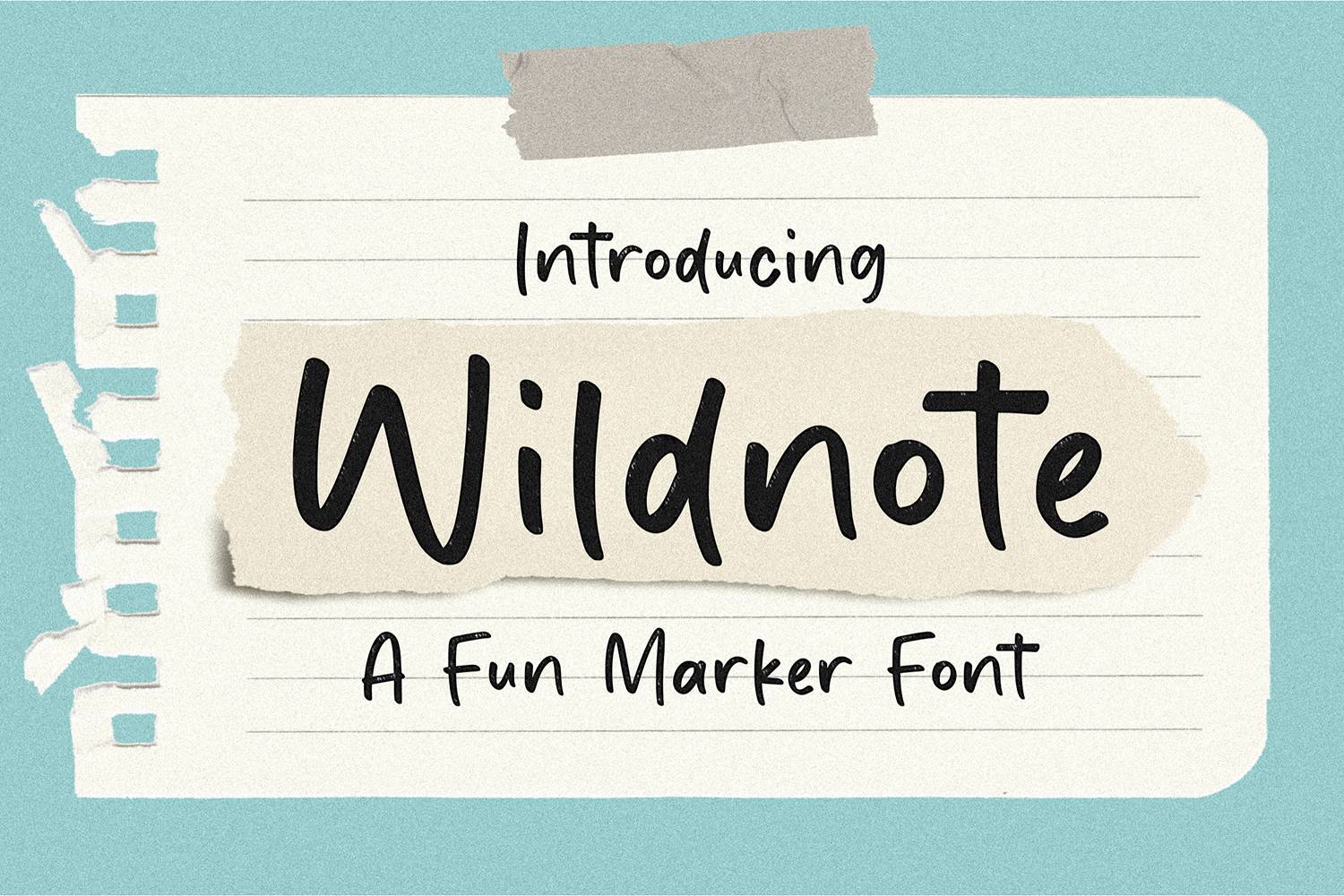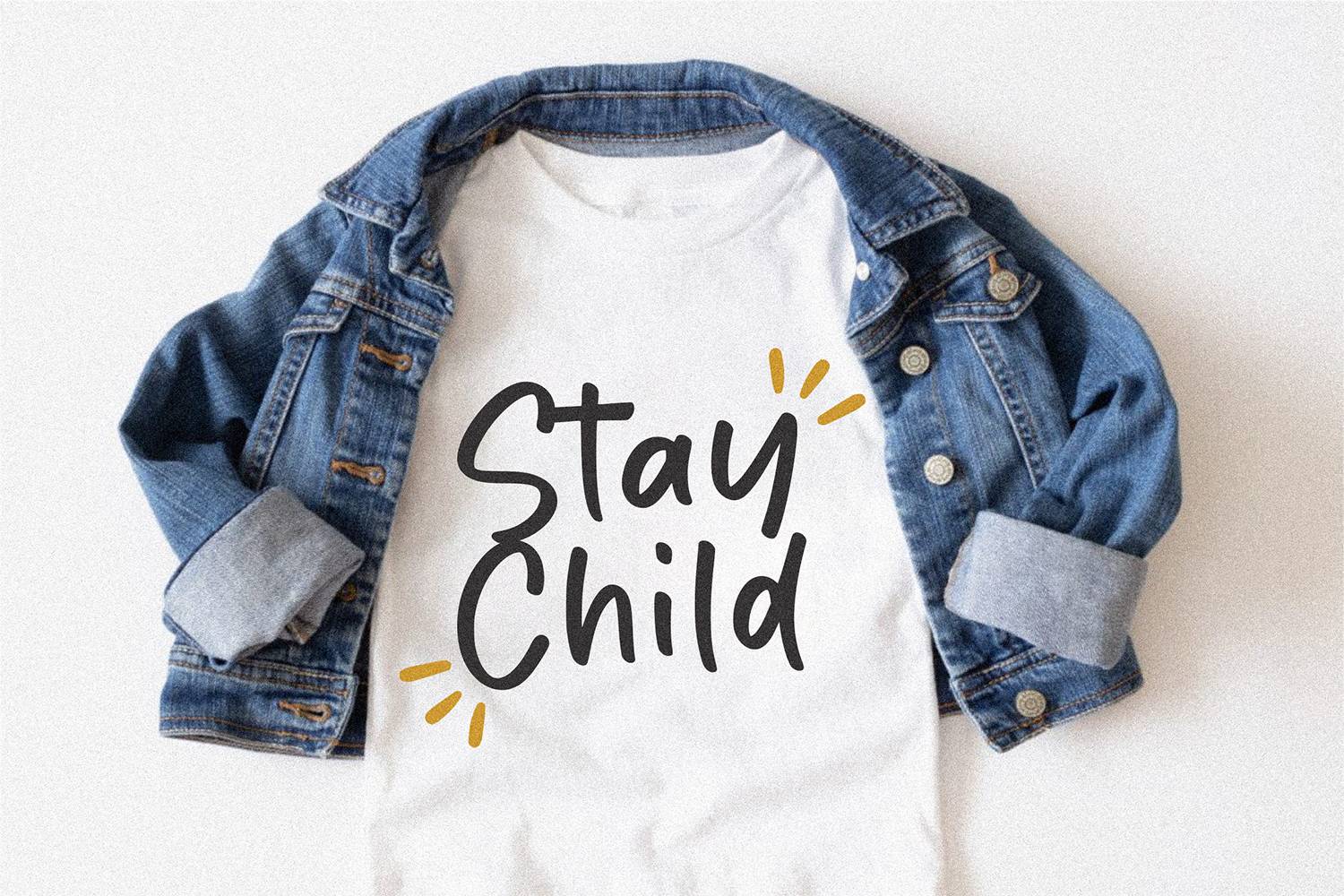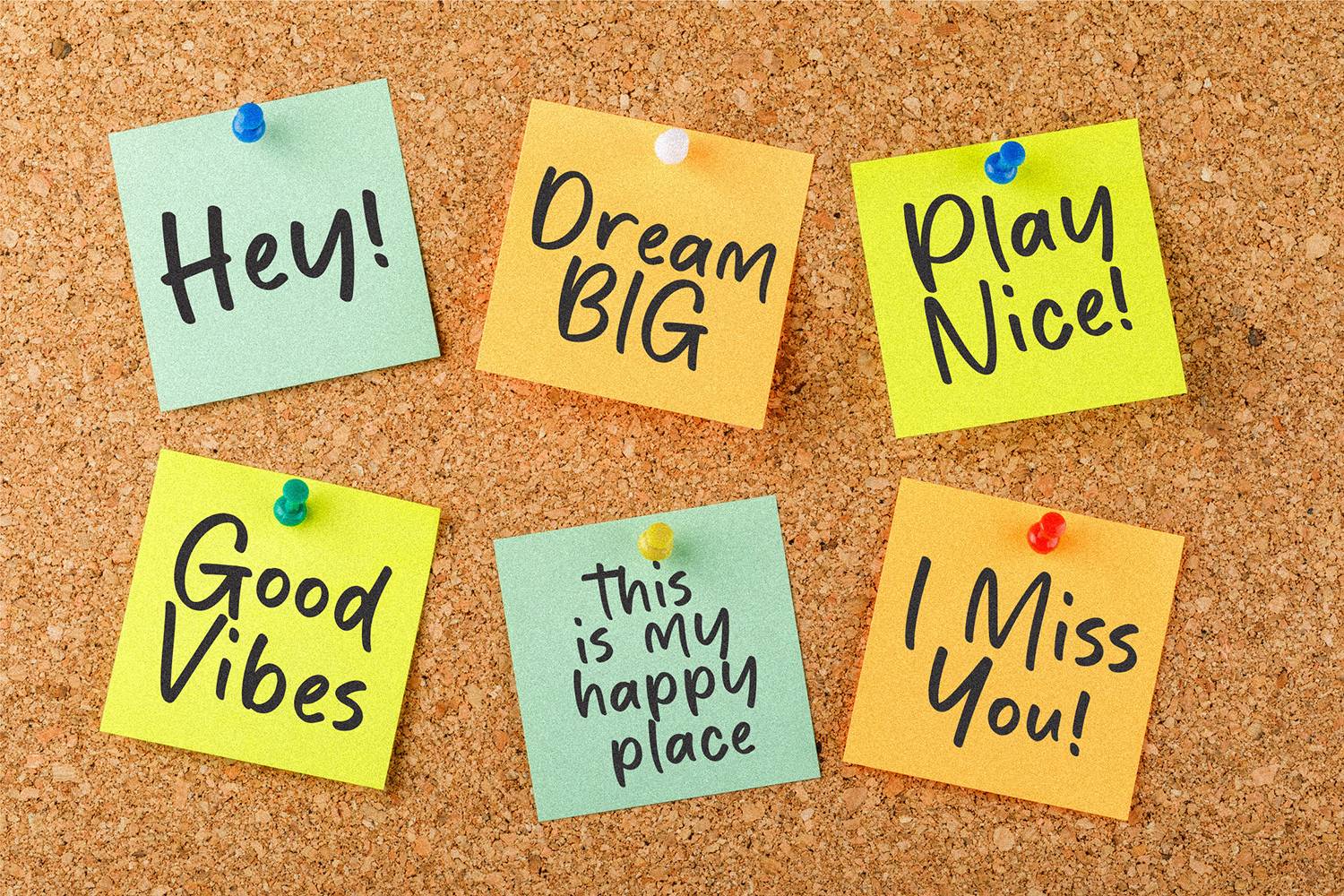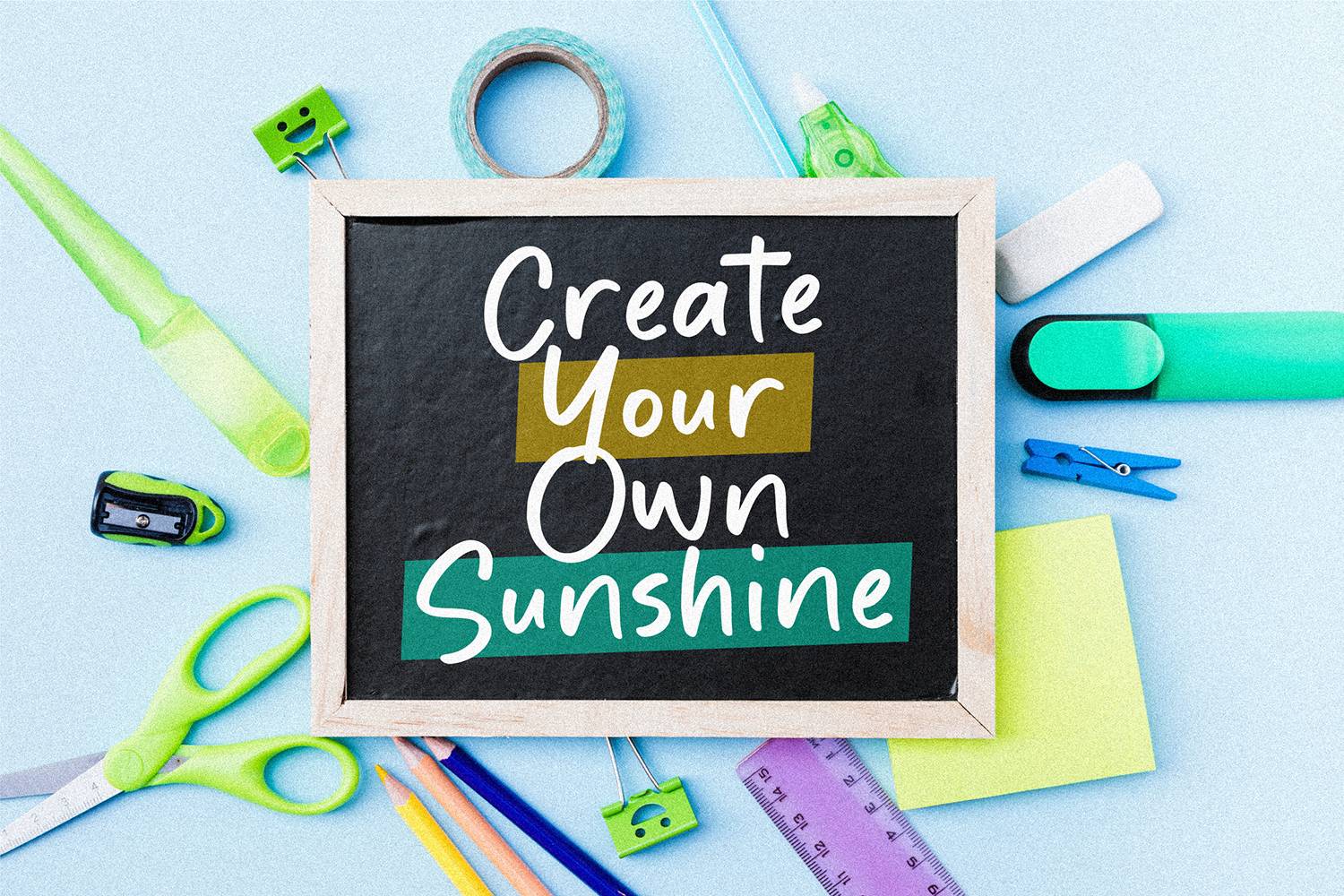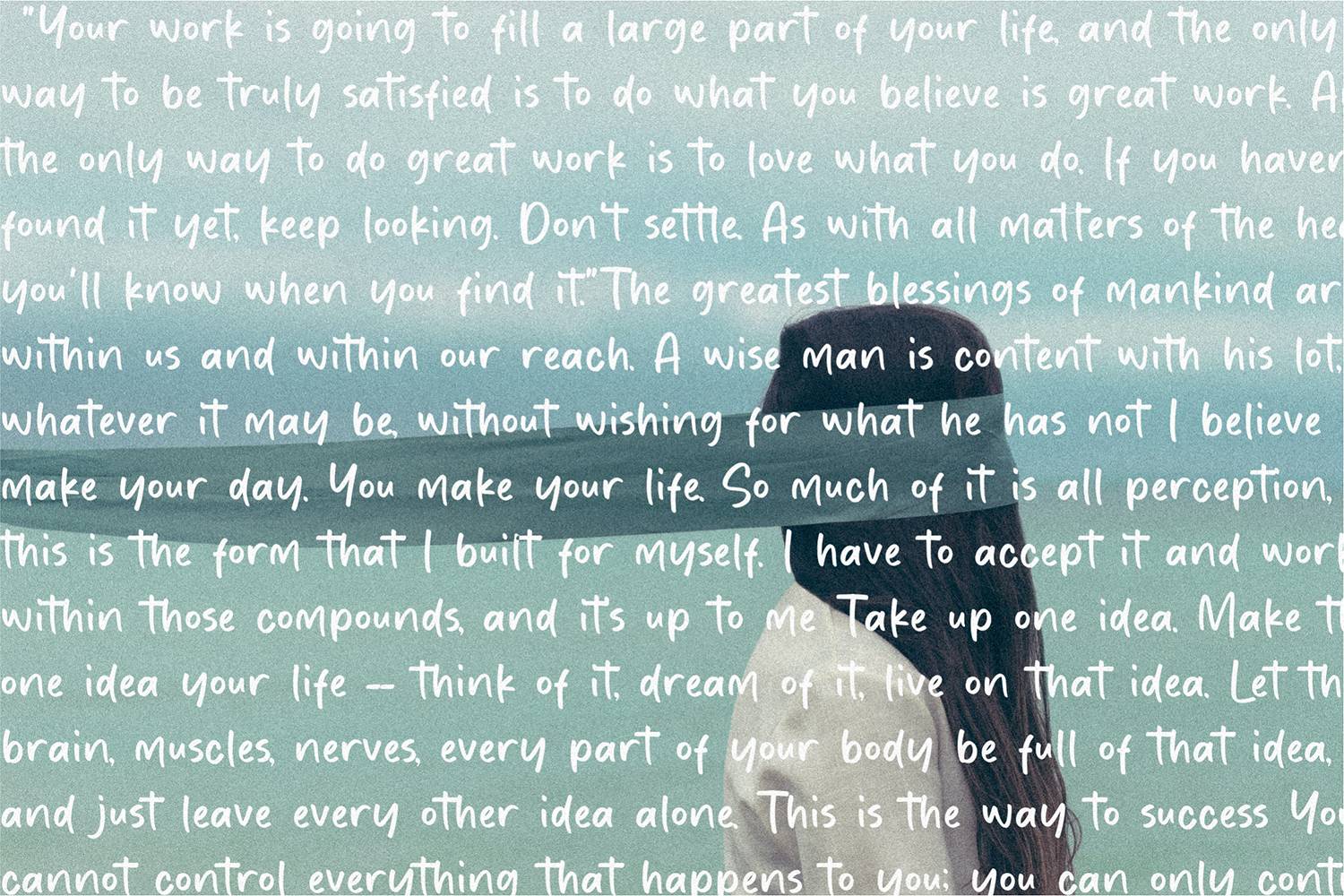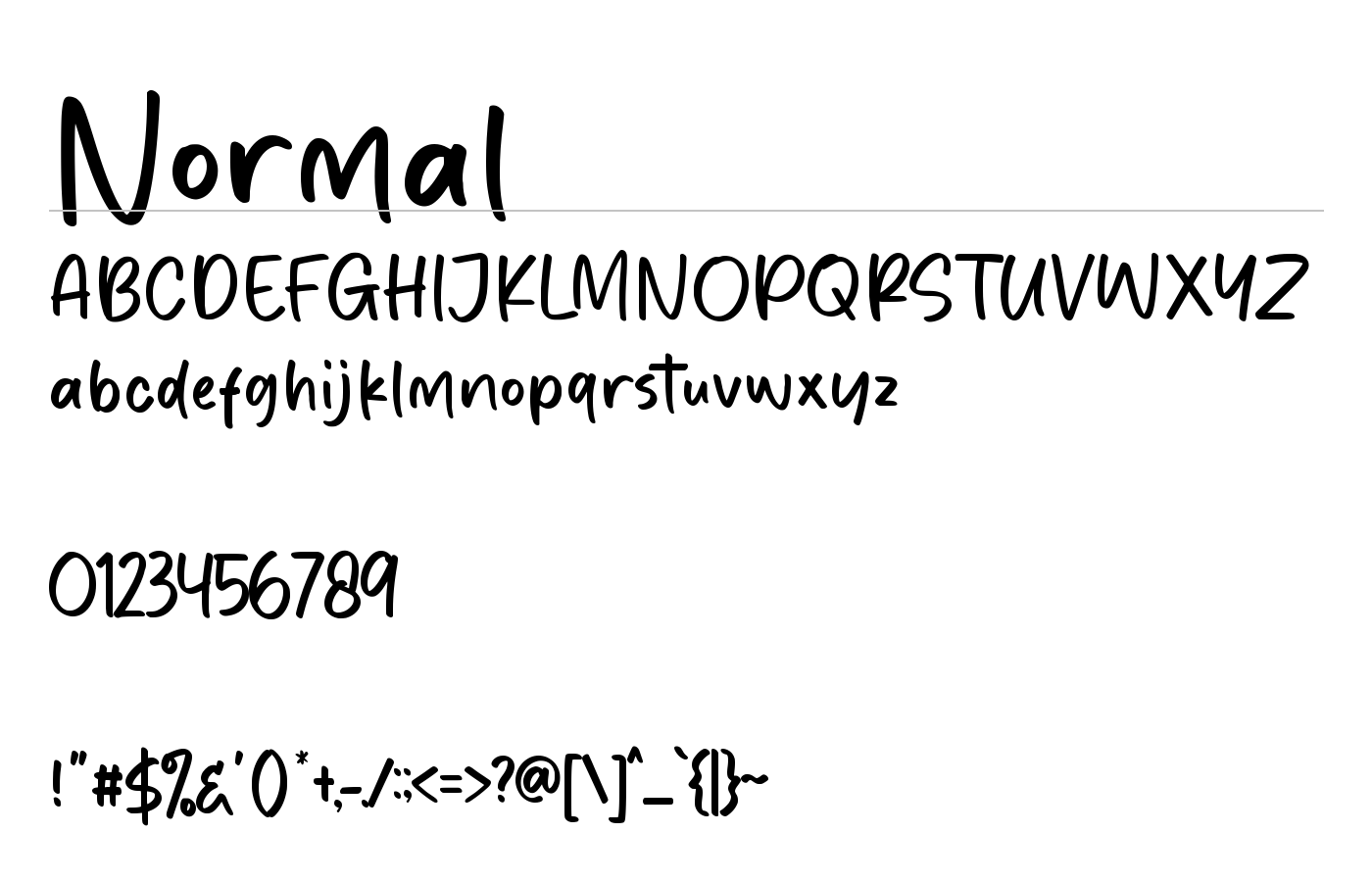
Wildnote is a playful and approachable sans serif font that mimics casual handwriting with slightly irregular strokes and rounded terminals. Its medium weight and moderately tall x-height make it highly readable while maintaining a lively, informal character perfect for creative projects, children’s materials, and friendly branding. This font works well in headlines, logos, and packaging where a personal and inviting touch is desired.
Wildnote Font
About Wildnote Font